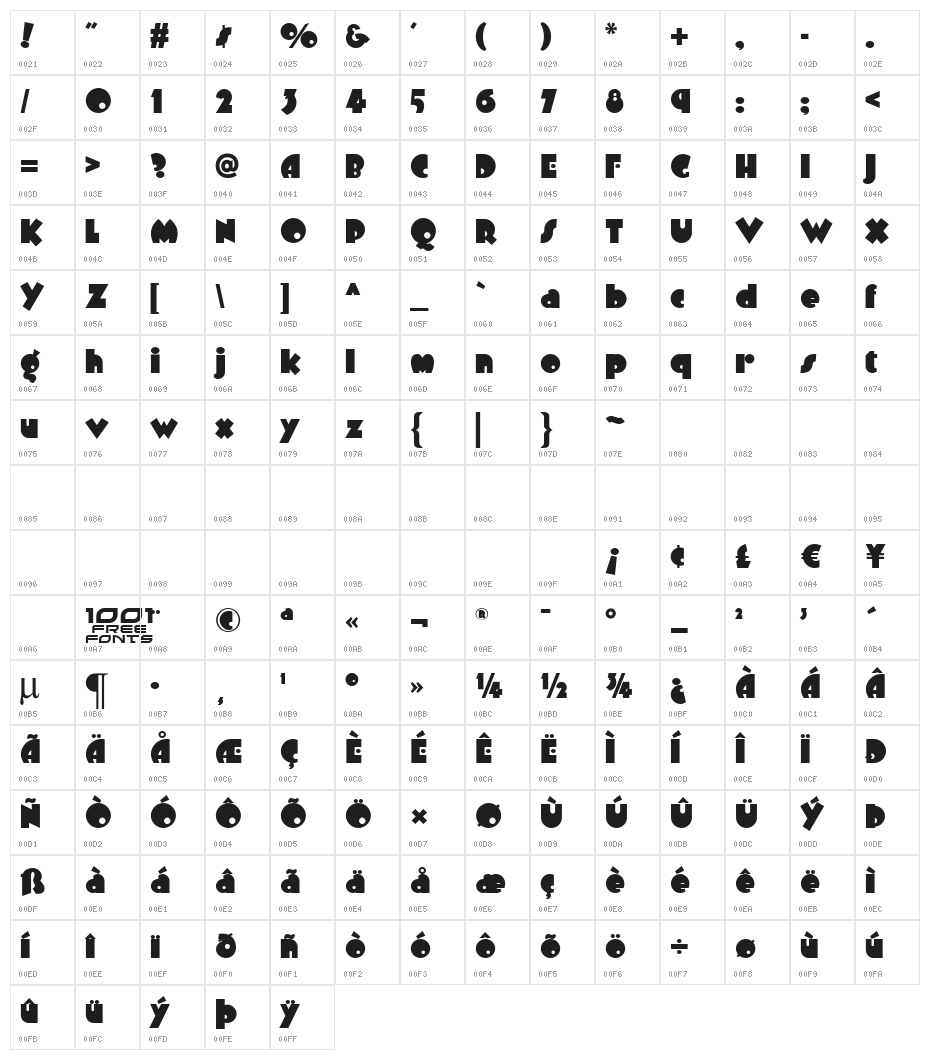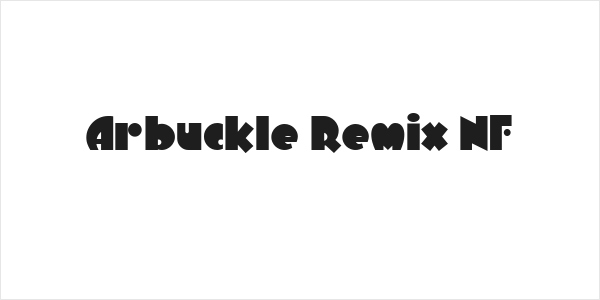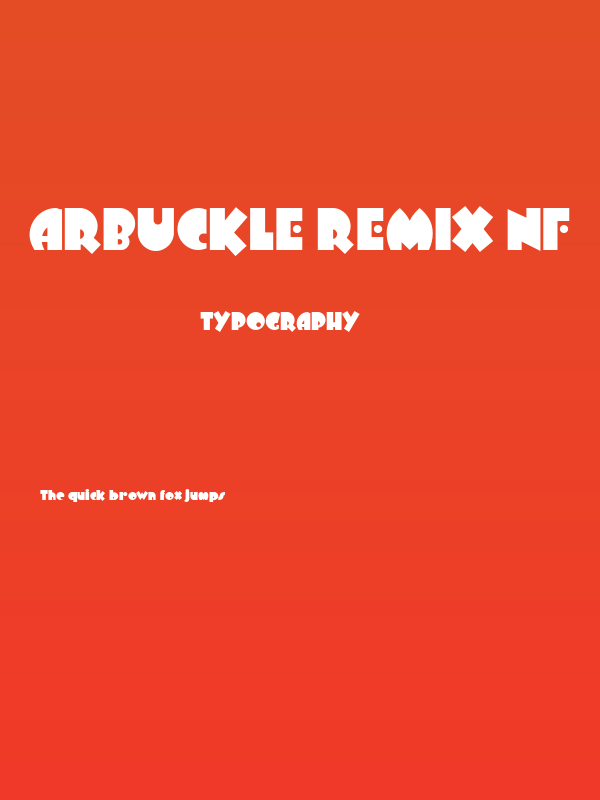
Arbuckle Remix NF Font
Arbuckle Remix NF Description
This font exhibits a bold and playful aesthetic, characterized by its thick, rounded shapes and geometric forms. The uppercase letters are particularly striking, with a strong presence and unique design elements that make each character stand out. The lowercase letters maintain the same boldness, offering a cohesive look across different text cases. Numbers and special characters are equally robust, ensuring consistency throughout. The font's style is reminiscent of retro and art deco influences, making it ideal for projects that require a touch of vintage flair combined with modern boldness.
| Overall Style | Vintage, Modern |
| Proposed Projects | Ideal for branding, poster design, album covers, and any project needing a bold, vintage-modern aesthetic. |